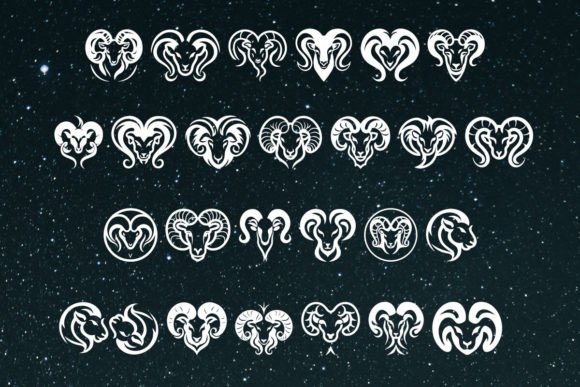
Unlock the Mystique with Black the Ram Zodiac Font
Have you ever been brainstorming a creative project, and suddenly a spark of inspiration hits you? You envision an intricate design, a bold statement, or a mystical vibe that transports your audience to another world. For designers and creatives, this moment is what drives us to push the boundaries of innovation.
That’s where the Black the Ram Zodiac Font comes in – a striking collection of intricate symbols and designs that can elevate your projects to new heights. This versatile font is perfect for adding a unique touch to your work, whether you’re crafting a mystical logo, designing an edgy poster, or creating a captivating visual experience.
With the Black the Ram Zodiac Font, you’ll have access to a wealth of creative possibilities that can take your designs from ordinary to extraordinary. As a valuable tool for designers, this font offers a level of customization and expressiveness that’s hard to find elsewhere.
Key Features of Black the Ram Zodiac Font
- Font Family: Black the Ram Zodiac Font is a unique, custom-designed font for zodiac signs.
- Size: Each character is designed with a consistent size, making it suitable for various applications.
- Resolution: The font is designed for high-resolution displays, ensuring clear and crisp text rendering.
- Unique Characteristics: The font features intricate, hand-drawn designs for each zodiac sign, making it perfect for astrology and zodiac-themed projects.
Black the Ram Zodiac Font Review
At first glance, Black the Ram Zodiac Font appears to be a unique and bold font, perfect for adding a touch of astrology to your designs. ✨ The intricate details and zodiac-inspired motifs are undeniably eye-catching, and the font’s use of a mix of bold and thin lines creates a sense of depth and visual interest.
- ✨ The font’s bold lines and dramatic flair make it ideal for use in headings and titles.
- ✨ The zodiac-inspired elements add a touch of personality and whimsy to the font, making it perfect for designs that need a bit of flair.
- ✨ The font’s use of a mix of bold and thin lines creates a sense of visual interest and depth.
However, there are some limitations to consider. ⚠️ The font may be a bit too bold and overwhelming for use in large blocks of text, and the intricate details may be difficult to read at small font sizes. Additionally, the font’s zodiac-inspired elements may not be to everyone’s taste.
Overall, I would recommend Black the Ram Zodiac Font for use in headings, titles, and other design elements where a bold and dramatic flair is desired. However, it may not be the best choice for use in large blocks of text or for designs that require a more subtle approach.
The Black the Ram Zodiac Font is perfect for designs related to astrology, zodiac signs, and mystical themes. Use it to create eye-catching graphics, posters, and social media posts. To get the most out of the font, experiment with different font sizes, colors, and styles to create a unique and captivating look.